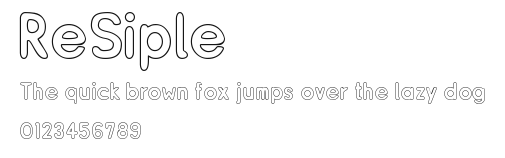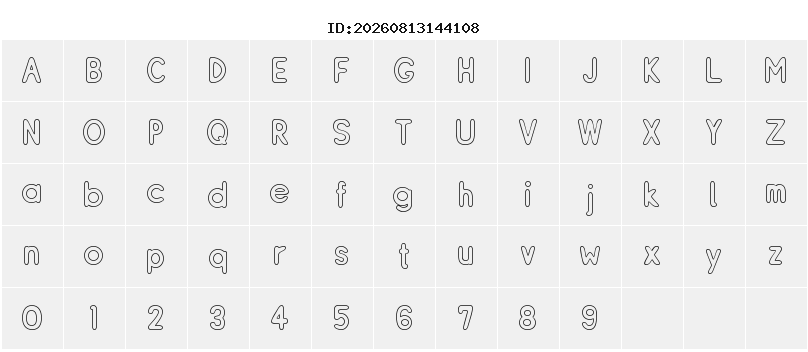
• Font Name: ReSiple
• Font Style: BoldOutline
• Full Font Name: ReSiple BoldOutline
About ReSiple.ttf
ReSiple.ttf is a modern, elegant sans-serif font designed for ultimate readability and visual harmony. Perfect for branding, headlines, web design, and print materials.